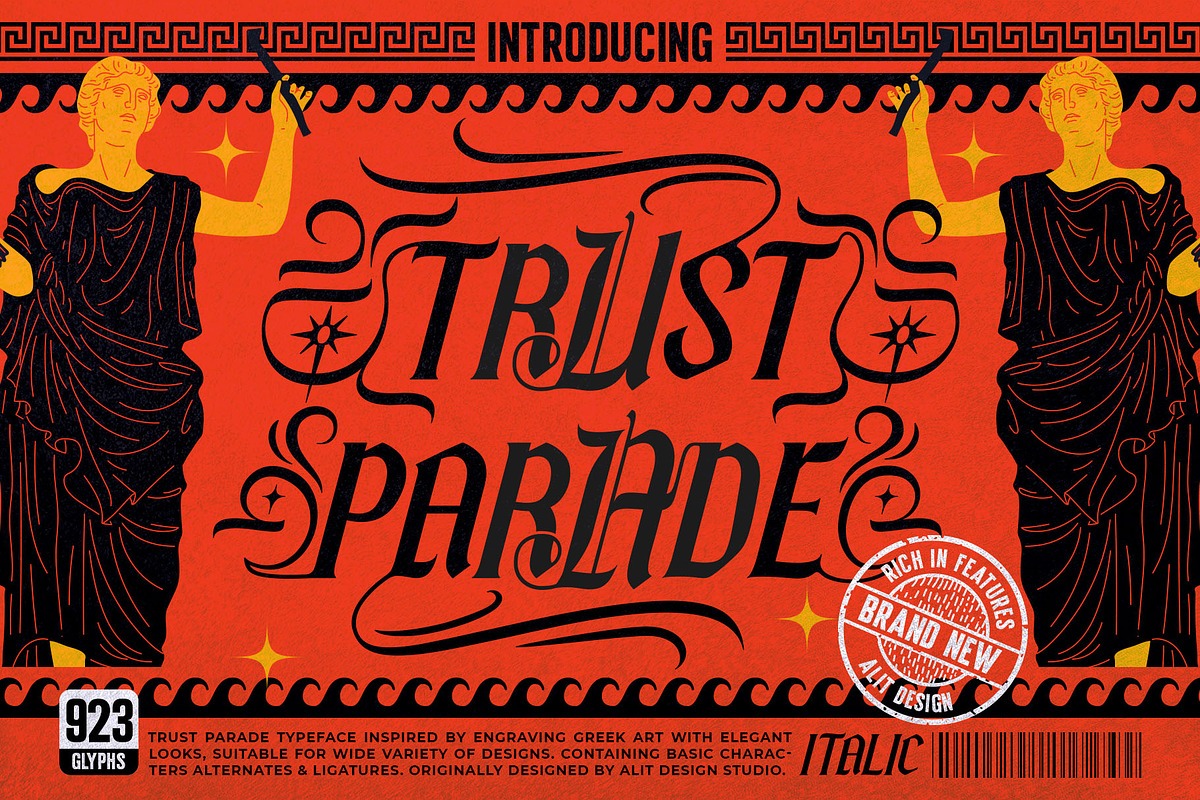
Trust Parade Font
Trust Parade Font is a powerful Greek engraving inspired display font that blends the aggressive energy of blackletter typography with the timeless beauty of ancient Greek and Roman letterforms. Designed for bold visual expression, this display font captures the chaos, strength, and mythology of classical civilizations while delivering a modern, rebellious aesthetic.
Inspired by ancient pottery engravings, marble inscriptions, and mythological symbolism, Trust Parade transforms historical typography into a contemporary display font for creative designers. Each character is carefully crafted with sharp serifs, diamond-shaped details, and chiseled forms that reflect the strength of gladiators and the elegance of ancient gods. This unique combination makes Trust Parade an ideal mythology font for projects that demand power, drama, and authenticity.
As a professional display font, Trust Parade is perfectly suited for logo design, branding, and high-impact visual communication. It works exceptionally well for heavy metal band logos, dark fantasy movie posters, tattoo designs, vintage liquor labels, streetwear branding, album covers, badge logos, packaging, and bold headlines. The font’s strong presence ensures maximum visual impact across both print and digital media.
Trust Parade includes an extensive set of 923 glyphs, offering outstanding flexibility for custom typography. With multiple stylistic sets (SS1–SS5), decorative ligatures, and ornamental swashes, designers can create unique layouts that feel handcrafted and expressive. These advanced OpenType features allow full control over typography, making Trust Parade a versatile engraving display font for creative projects that require originality.
The font is available in both Regular and Italic styles, allowing designers to build dynamic compositions while maintaining a consistent visual identity. Whether used for branding, editorial design, merchandise, or promotional materials, Trust Parade delivers a legendary look inspired by ancient myths and classical engraving techniques.
If you are searching for a Greek-inspired display font, a blackletter engraving font, or a mythology font for logos and branding, Trust Parade is a powerful choice that brings ancient history into modern design.